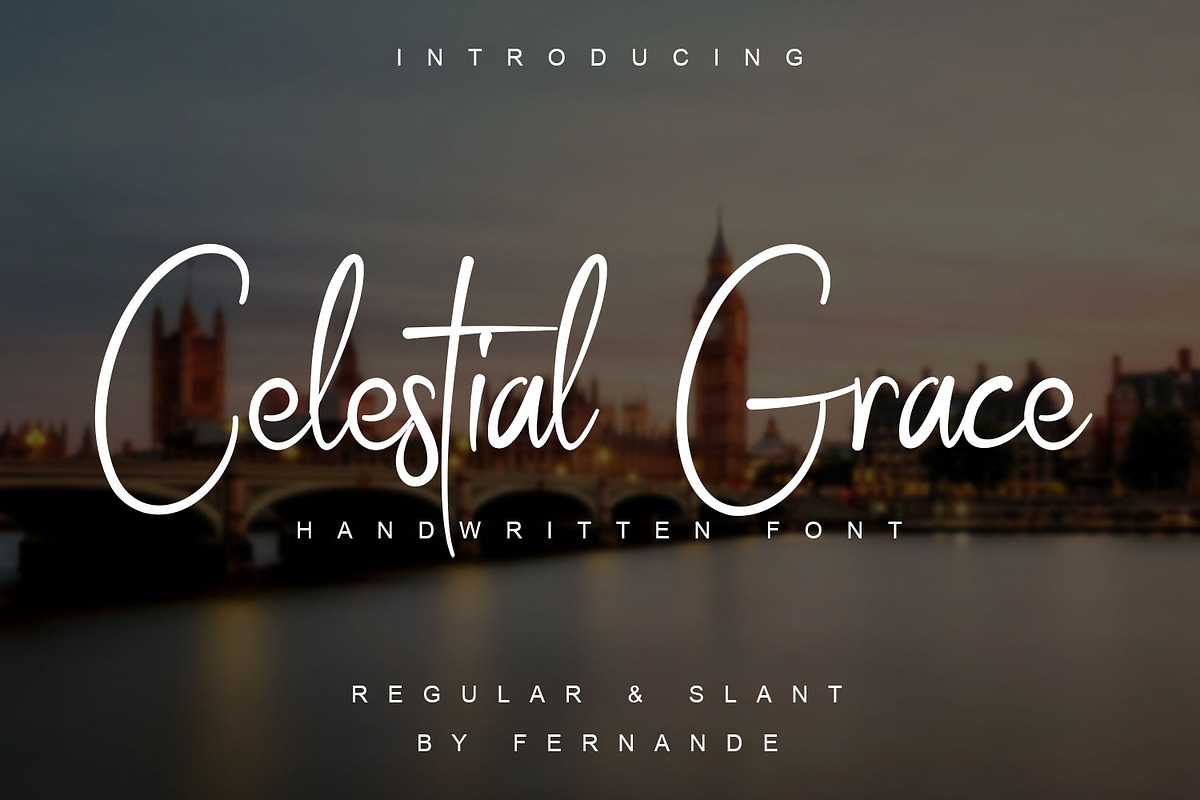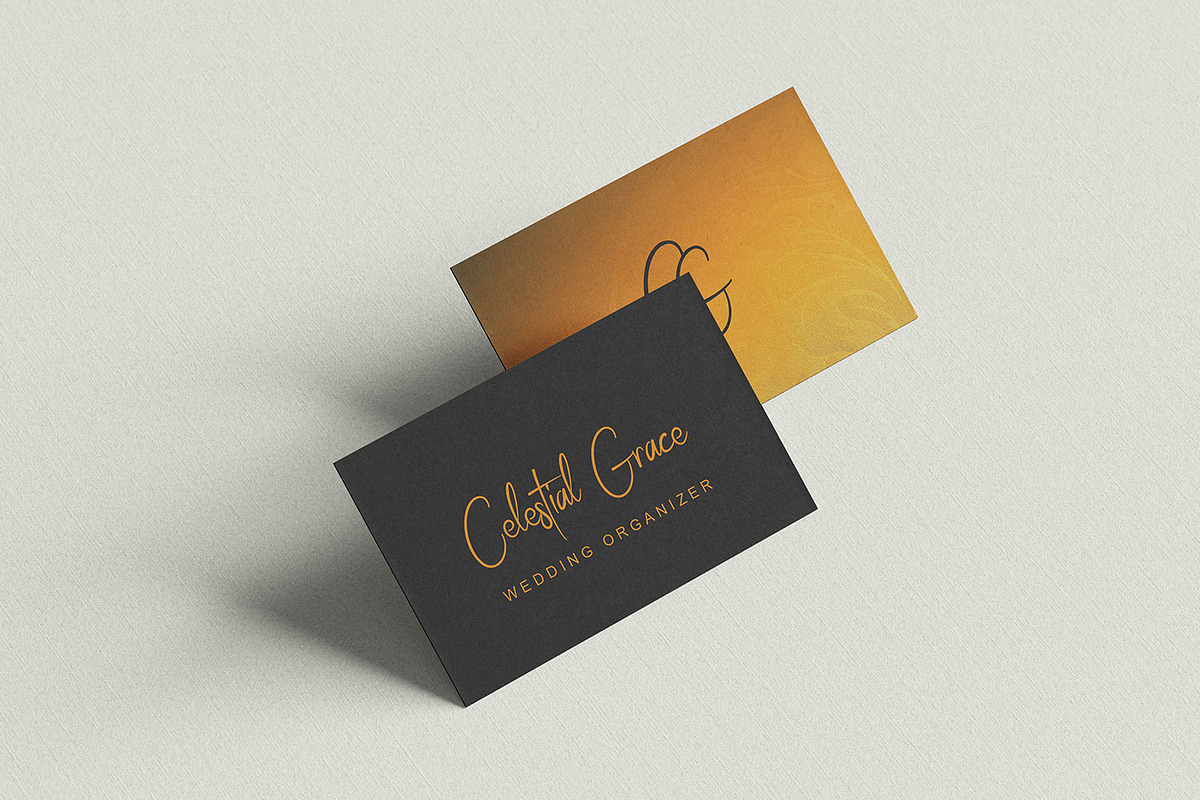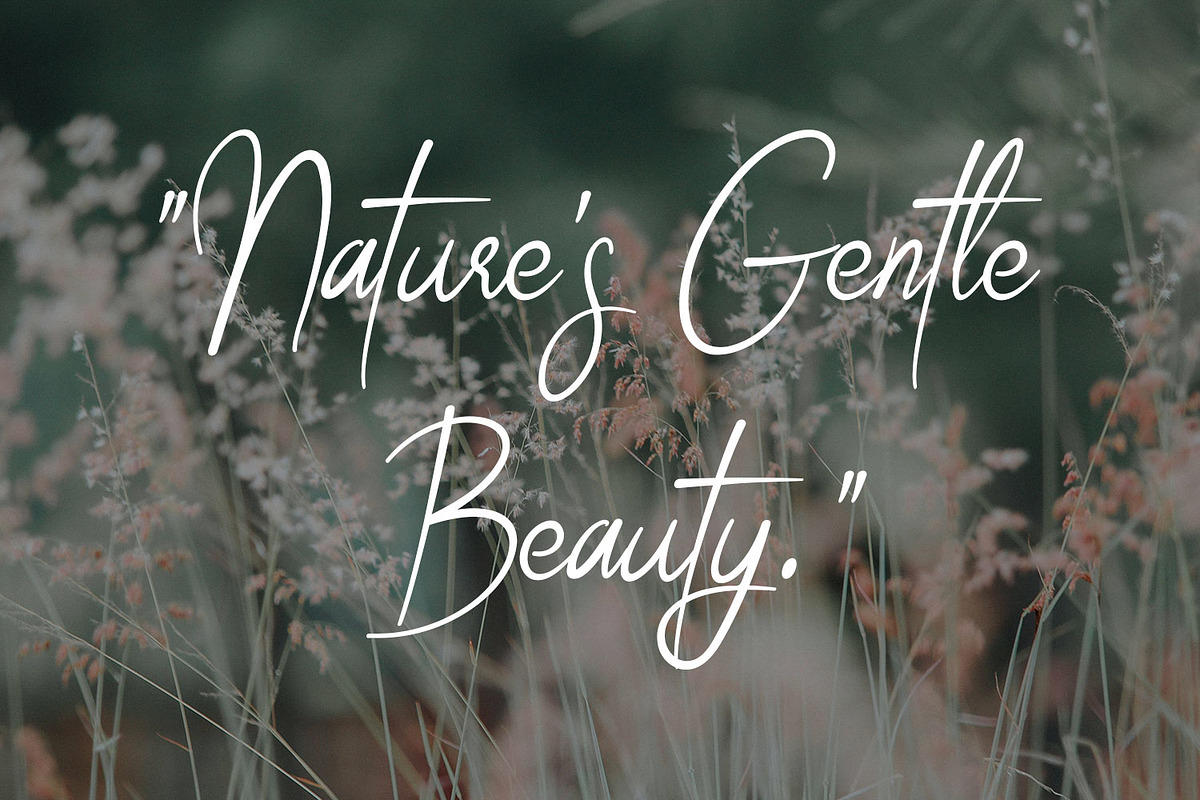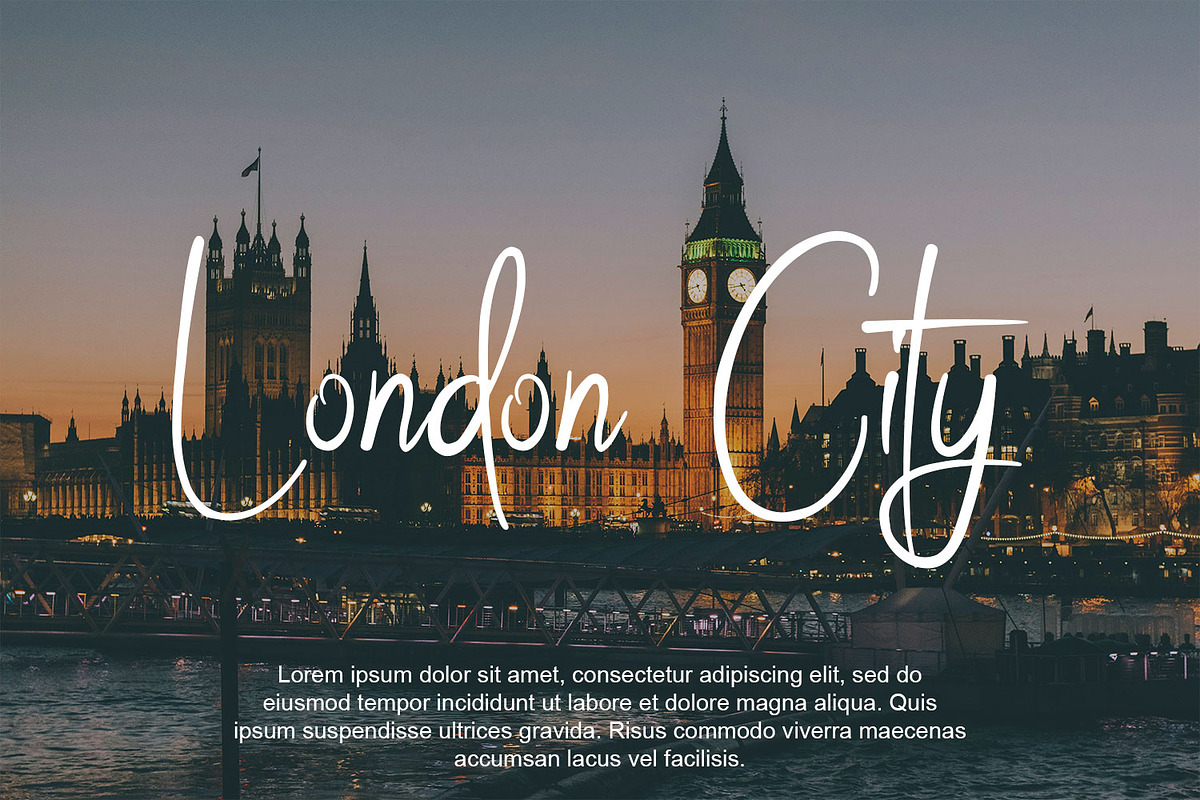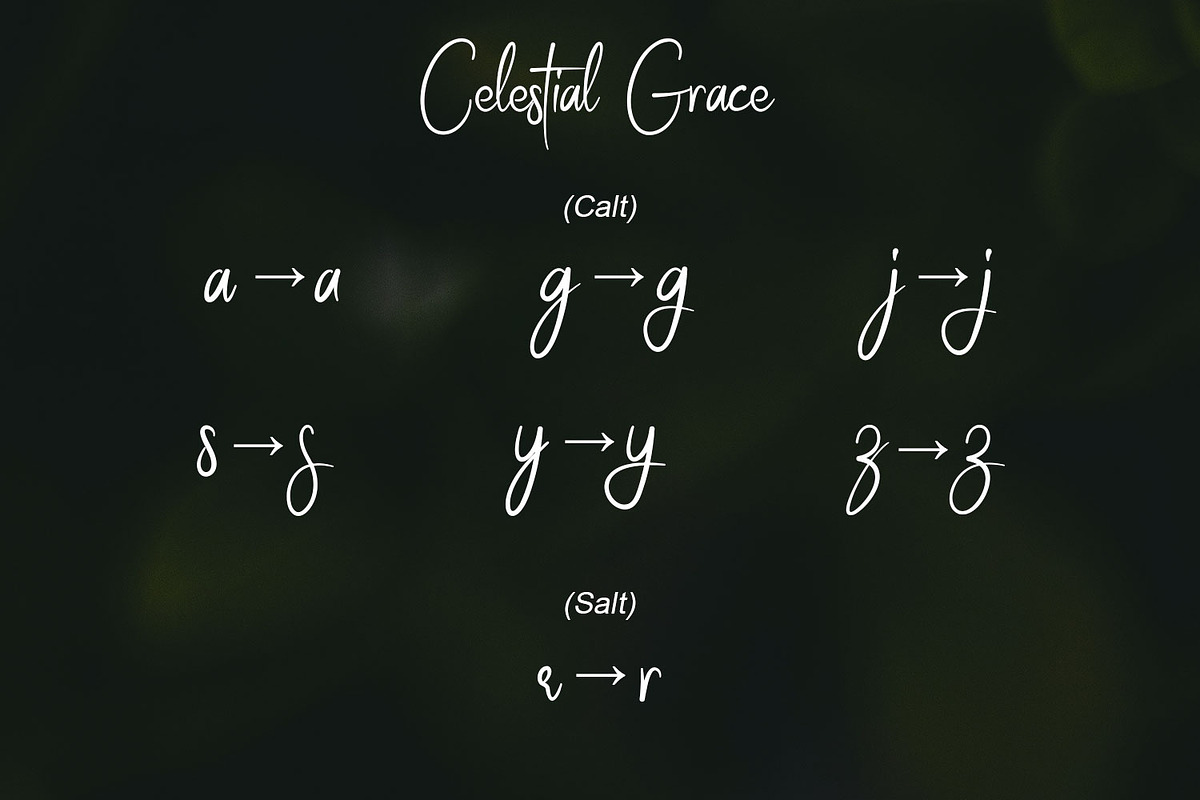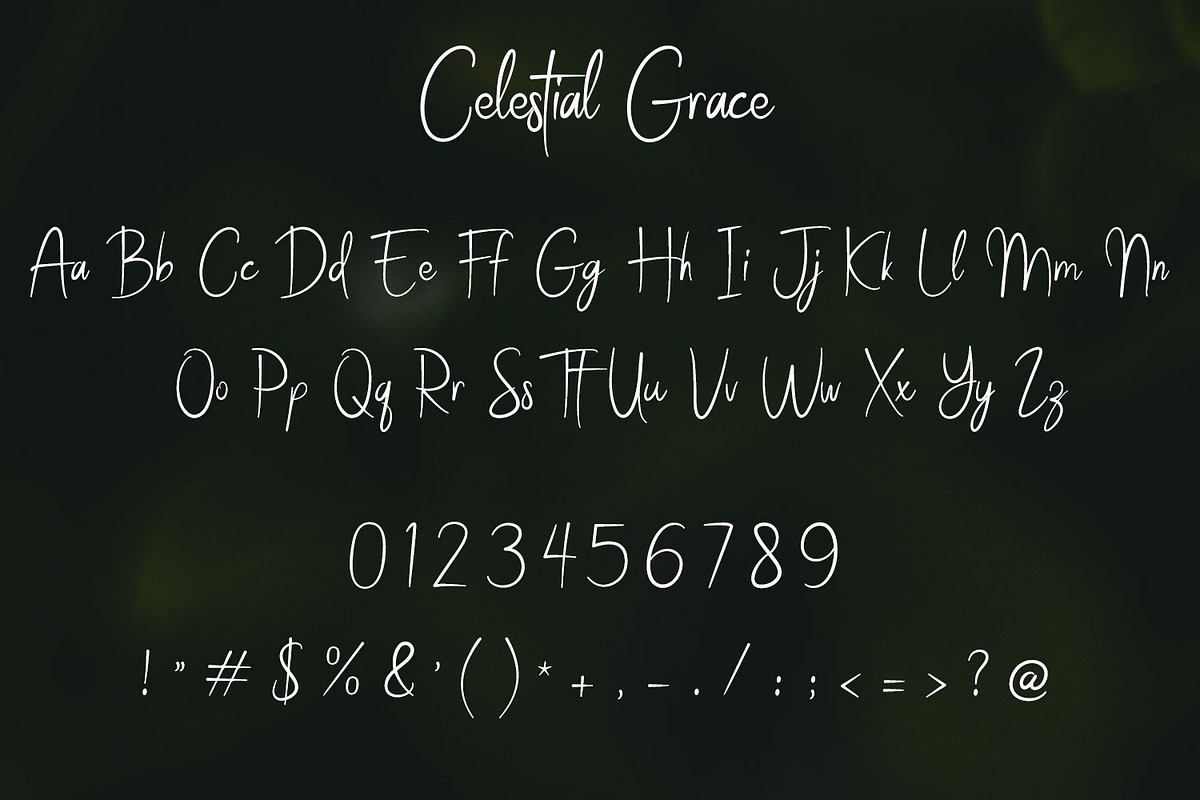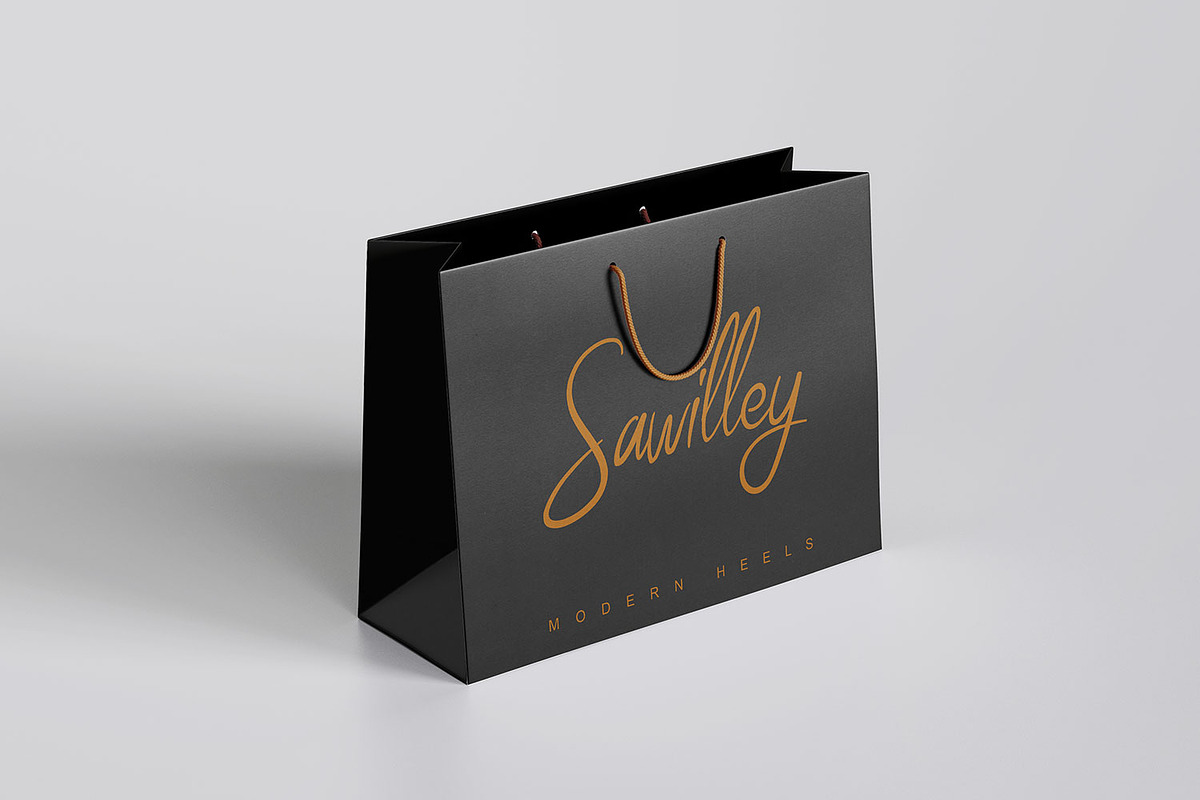
Celestial Grace
“Celestial Grace,” a momentous handwritten font, embodies elegance and grace. Quintessentially versatile, it presents itself in two distinct styles: Regular and Slant. Its design is inspired by the fluidity of natural handwriting, promoting a soft, thoughtful touch that infuses warmth and intimacy into every word. This distinguishes it for various applications, ranging from sleek logos to attractive branding, and enchanting invitations.